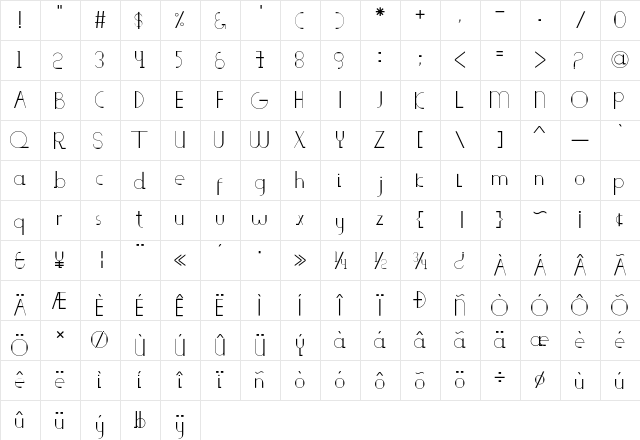
saleng Regular
| Foundry | belovestudio |
| Designer | abdul manan |
Design Context for saleng Typeface
saleng is a composed and adaptable typeface that performs quietly and consistently across a wide range of design contexts.